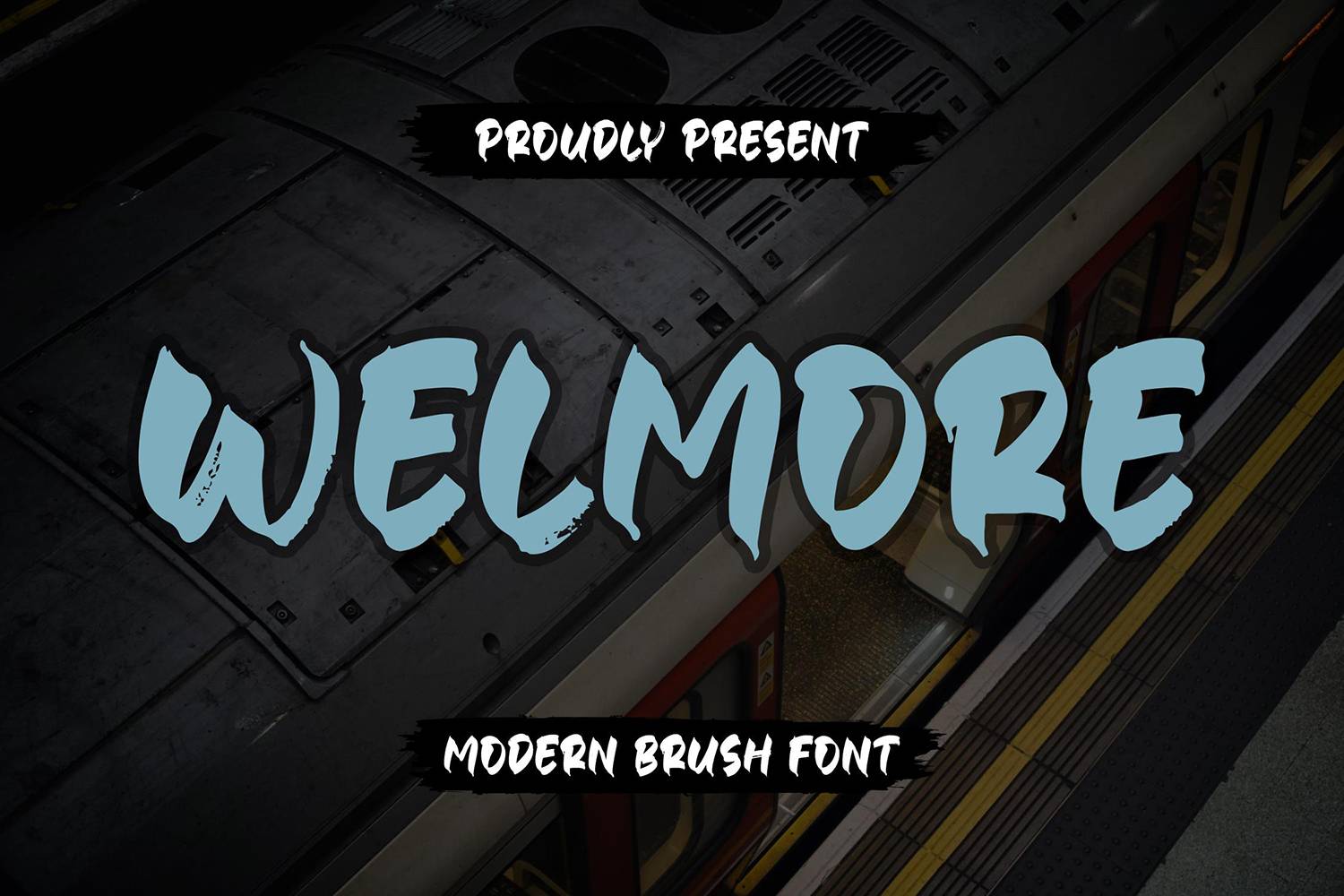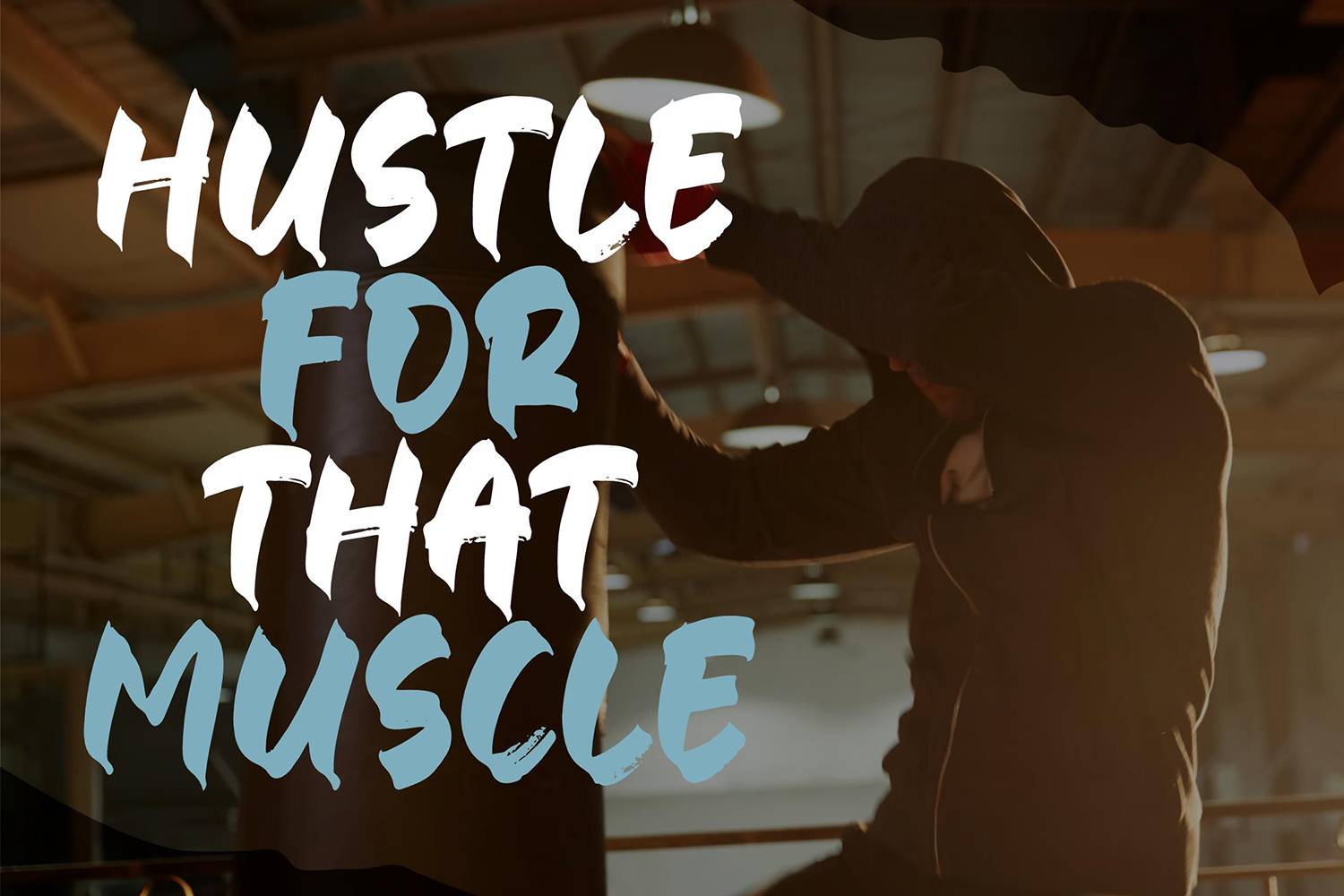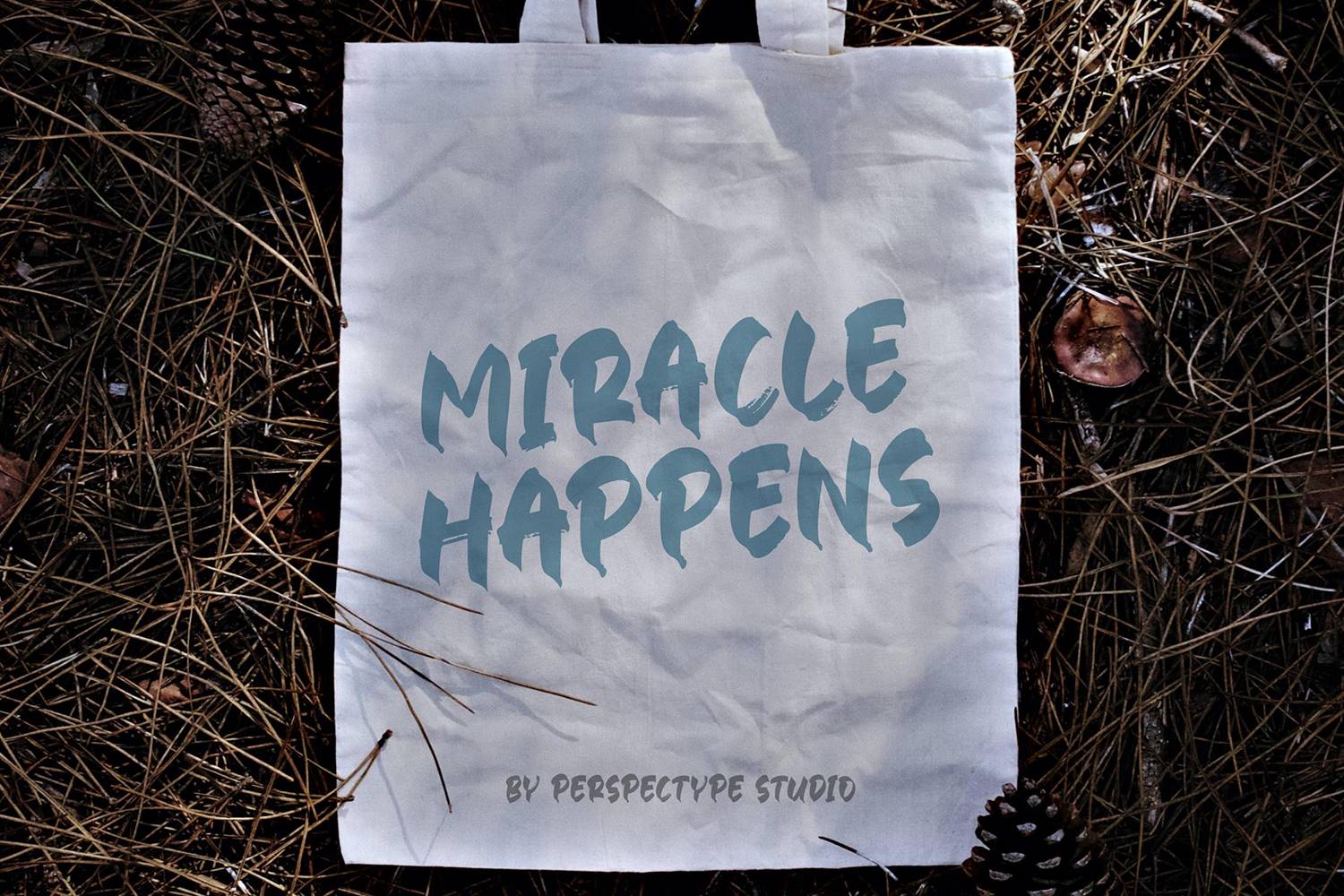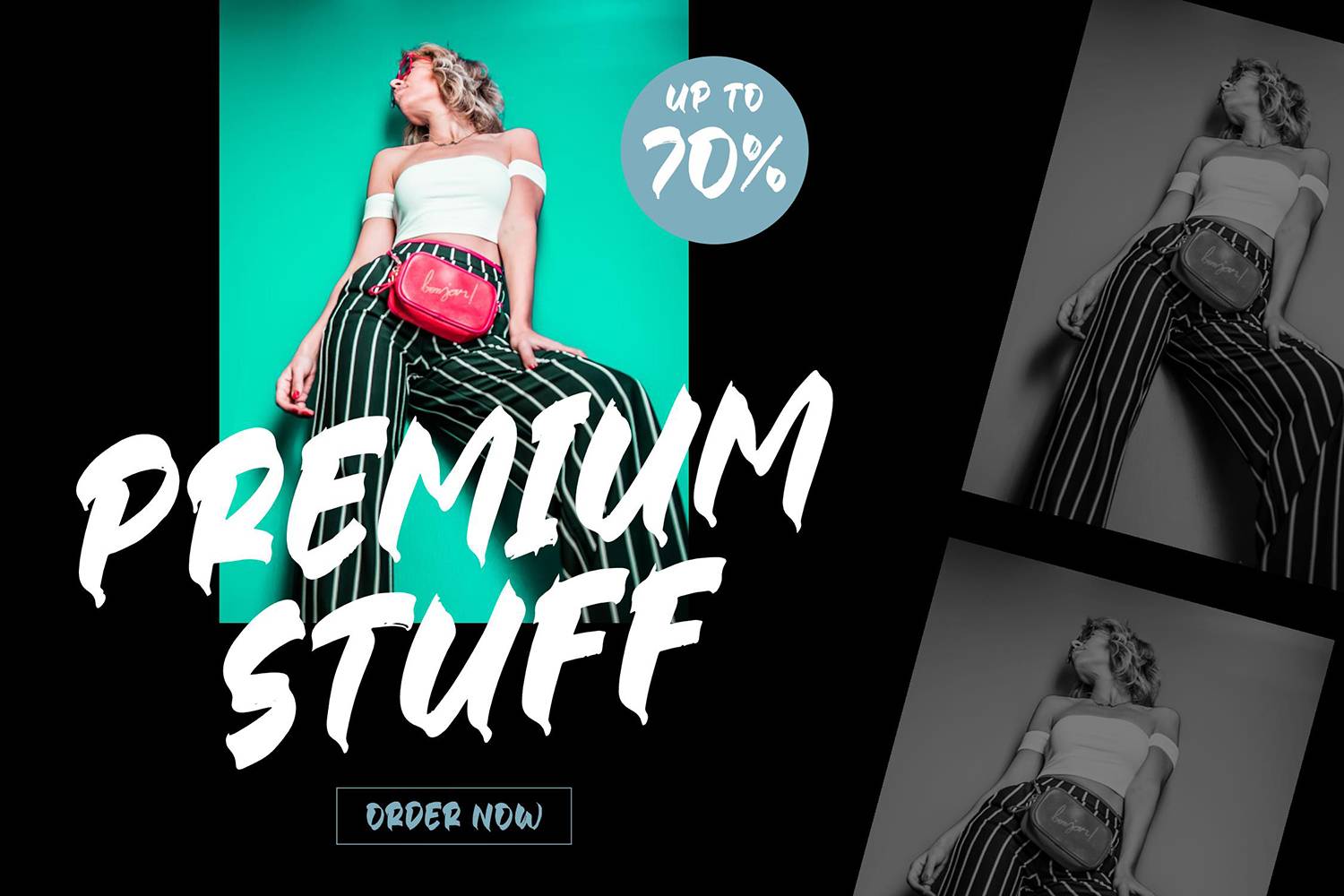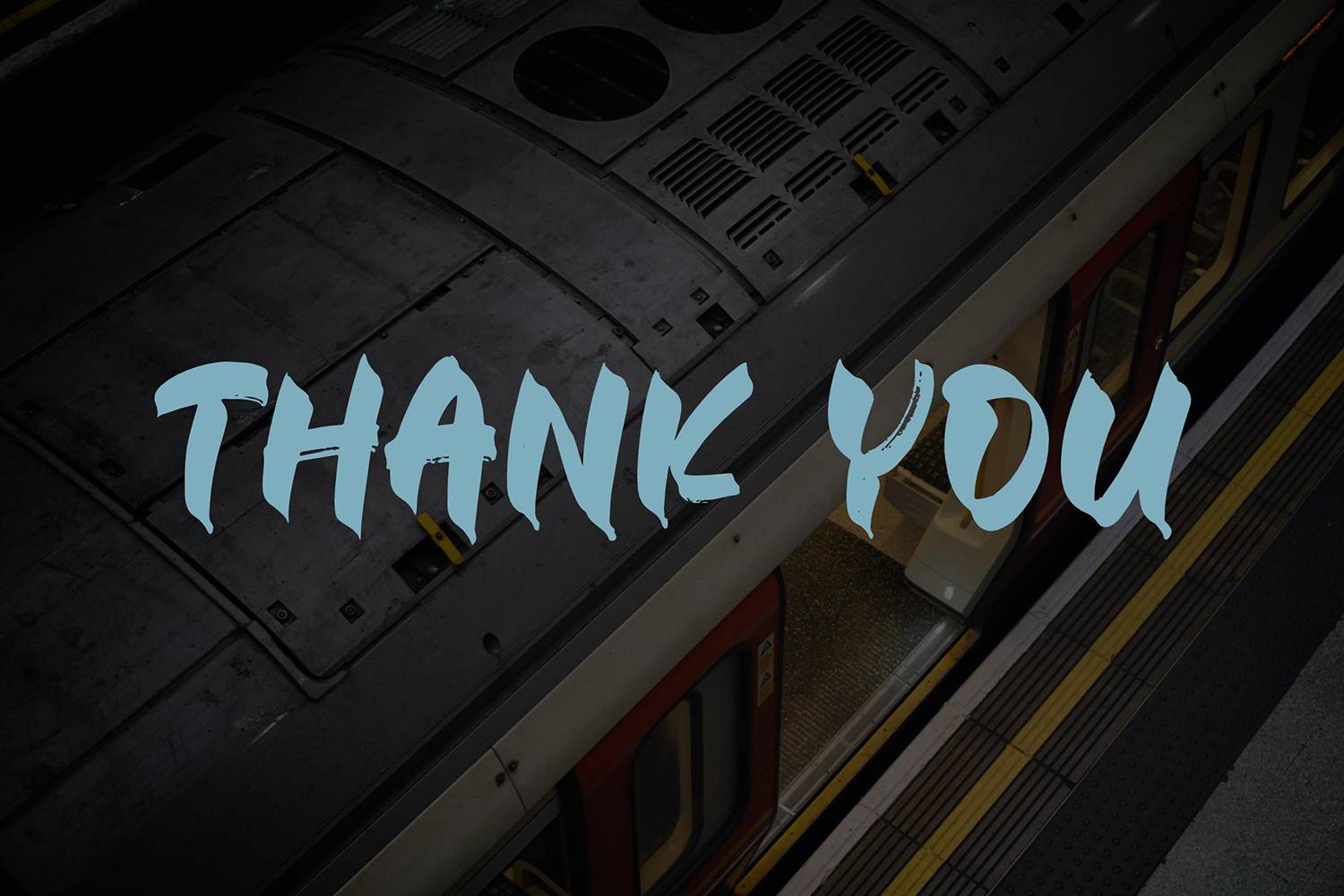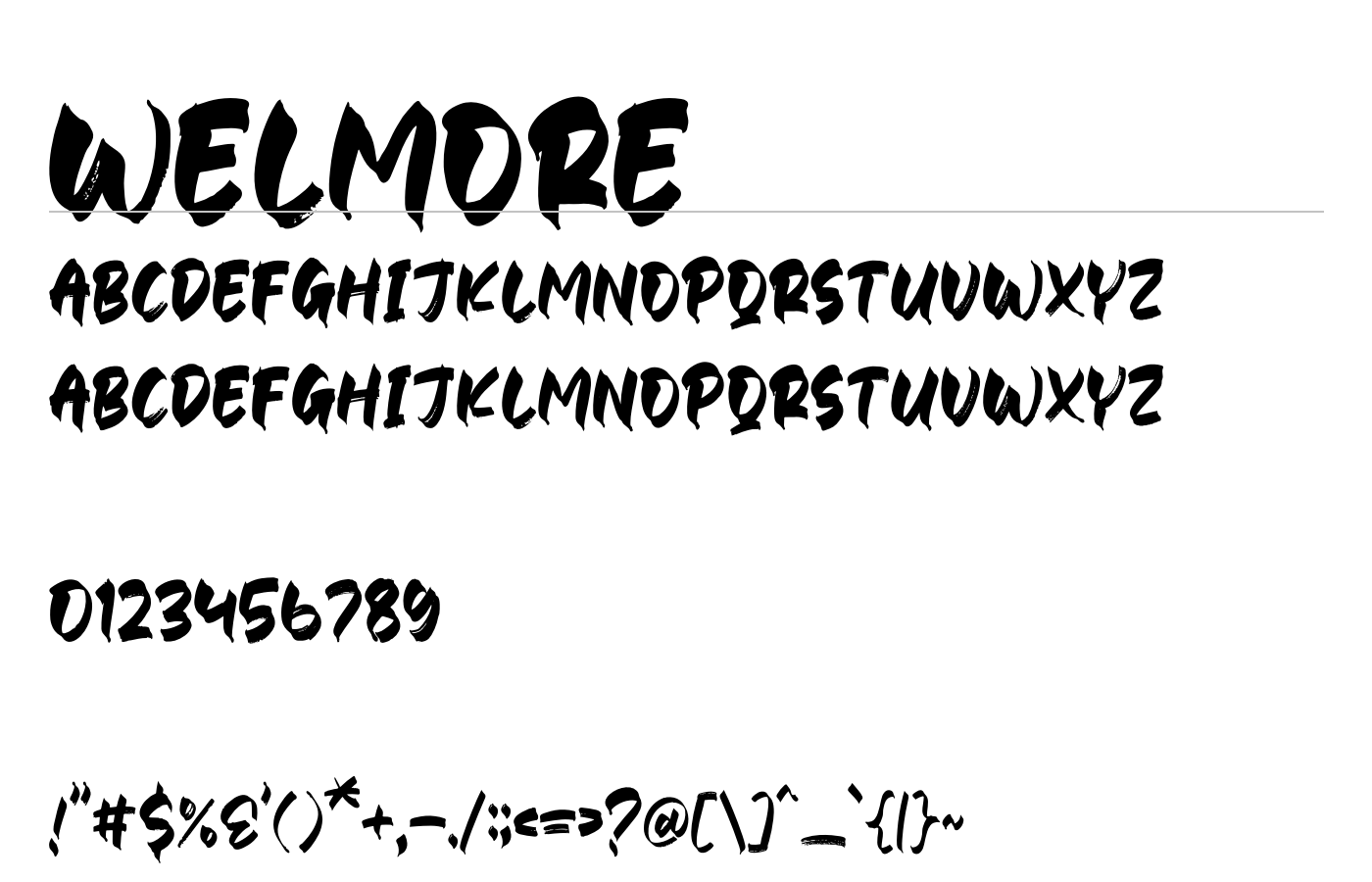
Welmore is a bold, expressive brush script font with a dynamic and hand-painted feel. Its rough edges, high contrast strokes, and slightly condensed letterforms convey energy and creativity, making it perfect for eye-catching headlines, logos, and packaging that need a lively, artistic touch. This font works especially well in designs that seek a friendly, informal vibe with strong personality.
Welmore Font
About Welmore Font